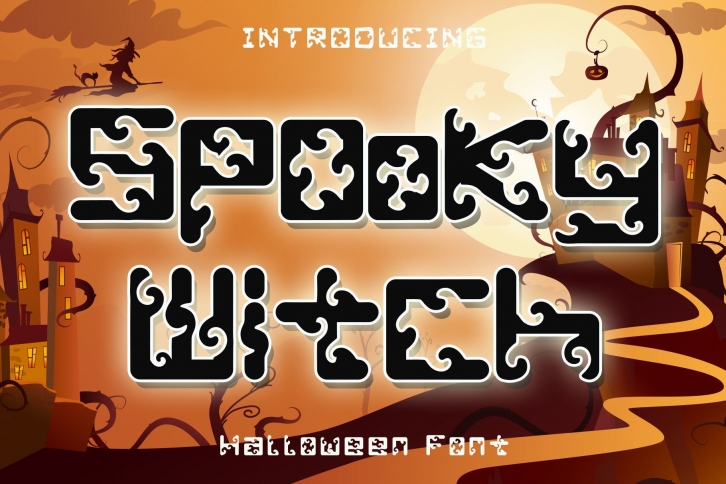
Spooky Witch is a bold and creepy display font. No matter the topic, this font will be an incredible asset to your fonts’ library, as it has the potential to elevate any creation.Â